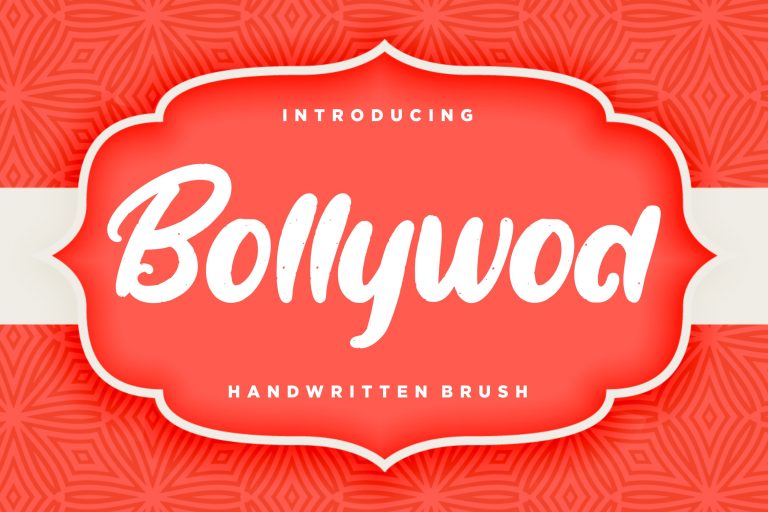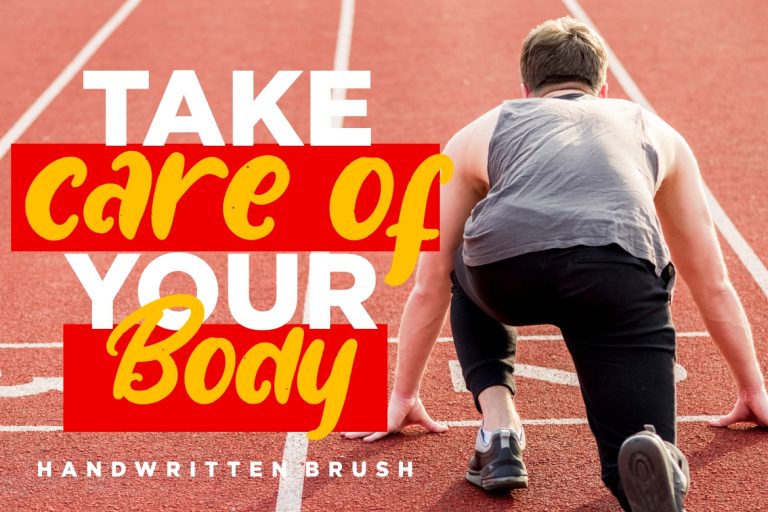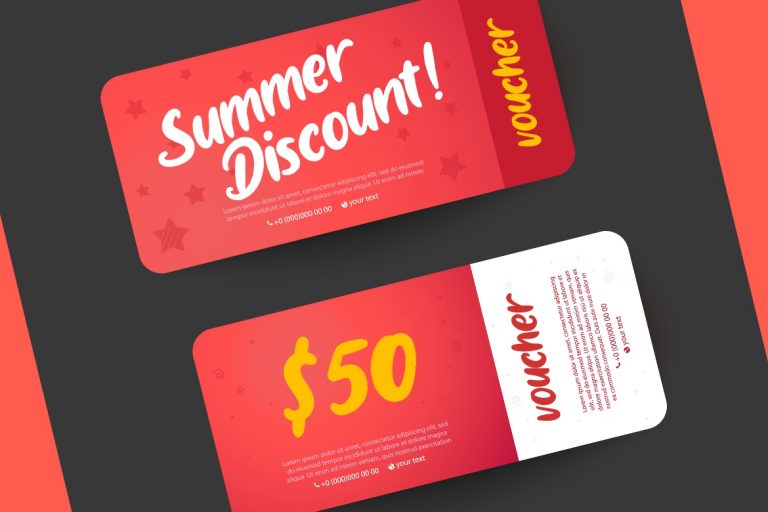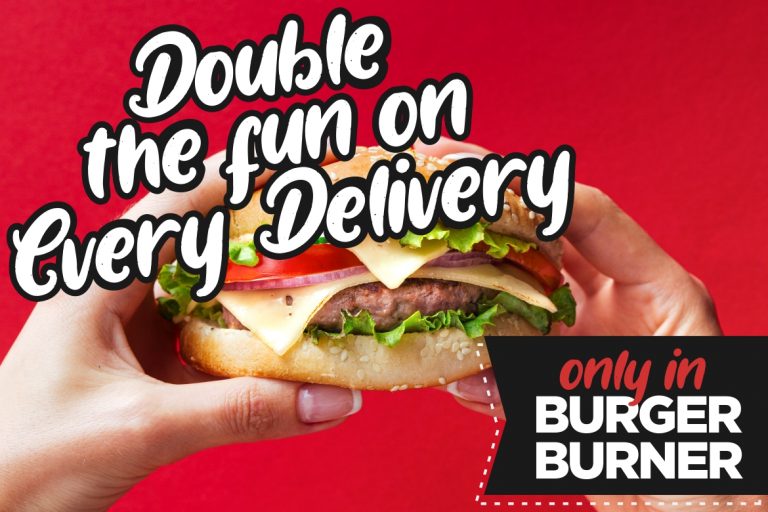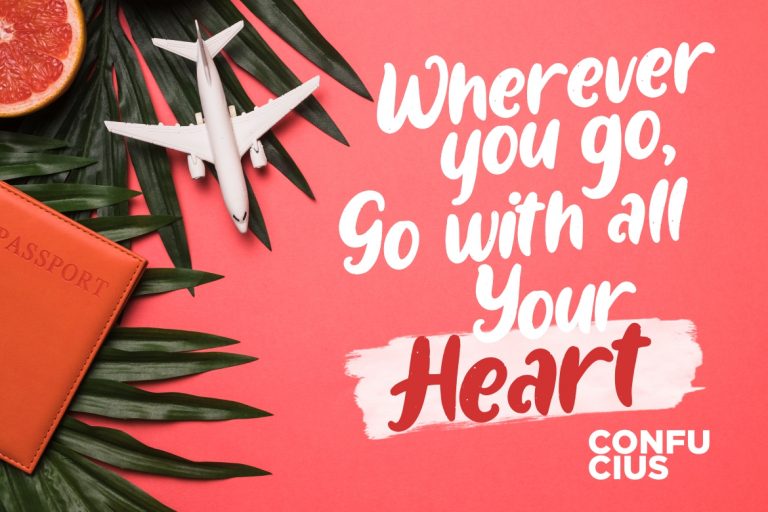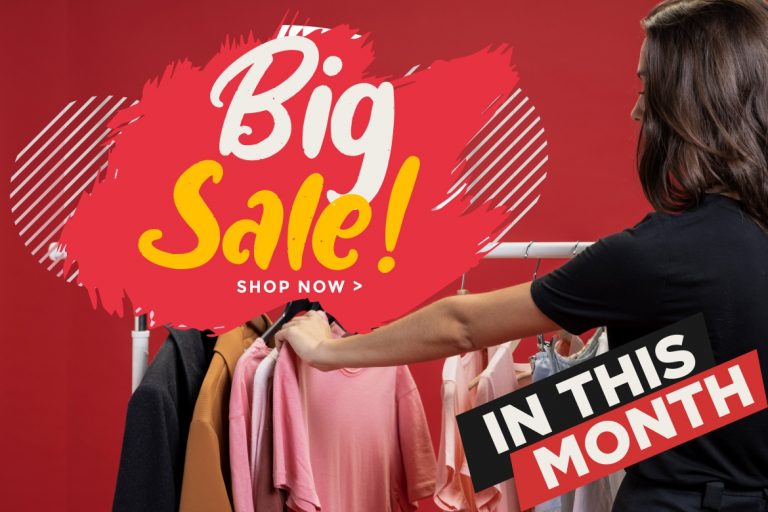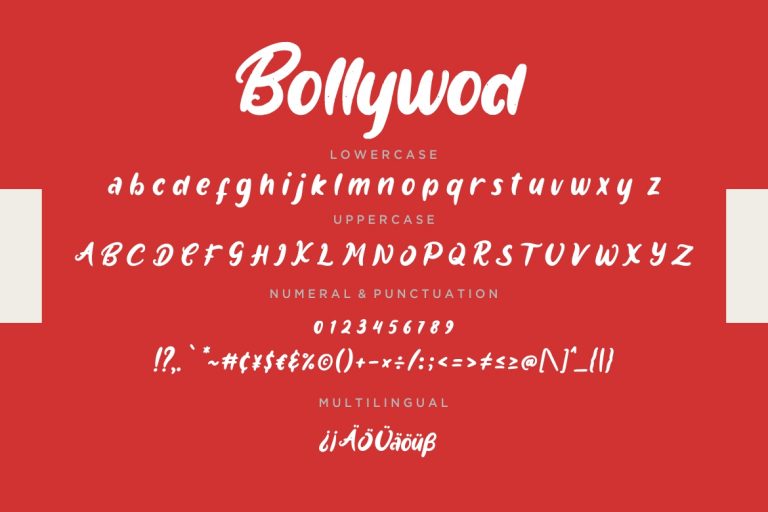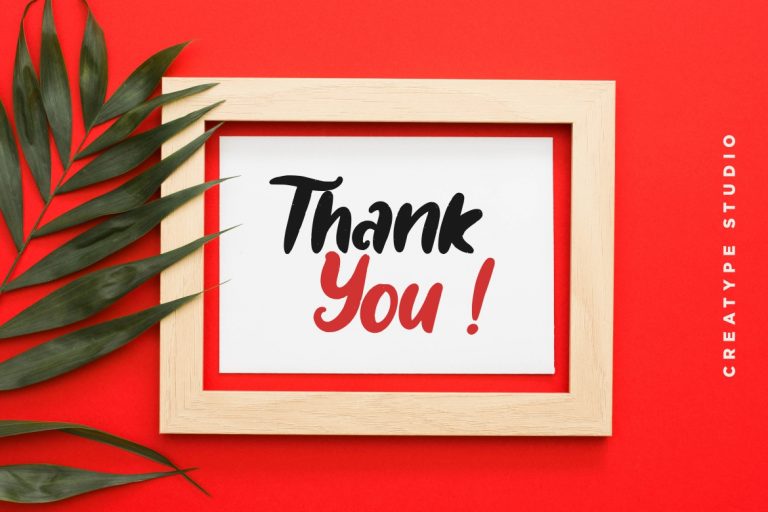
Bollywod Handwritten Brush
Bollywod is stylish marker brush font that looks natural and perfect for casual occasion.
Bollywod is perfect for branding projects, logo, wedding designs, social media posts, advertisements, product packaging, product designs, label, photography, watermark, invitation, stationery and any projects that need handwriting taste.
- Fonts include multilingual support for; ä ö ü Ä Ö Ü ß ¿ ¡